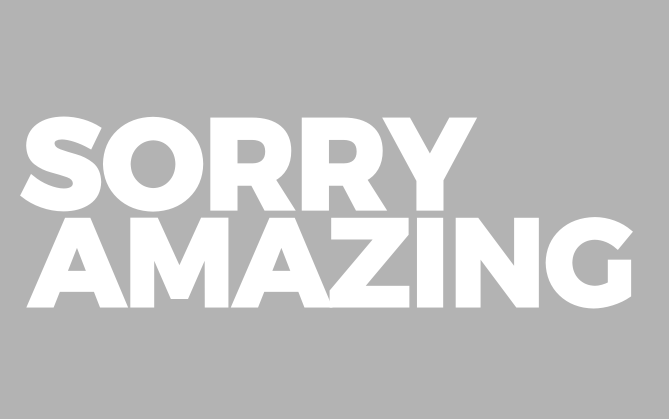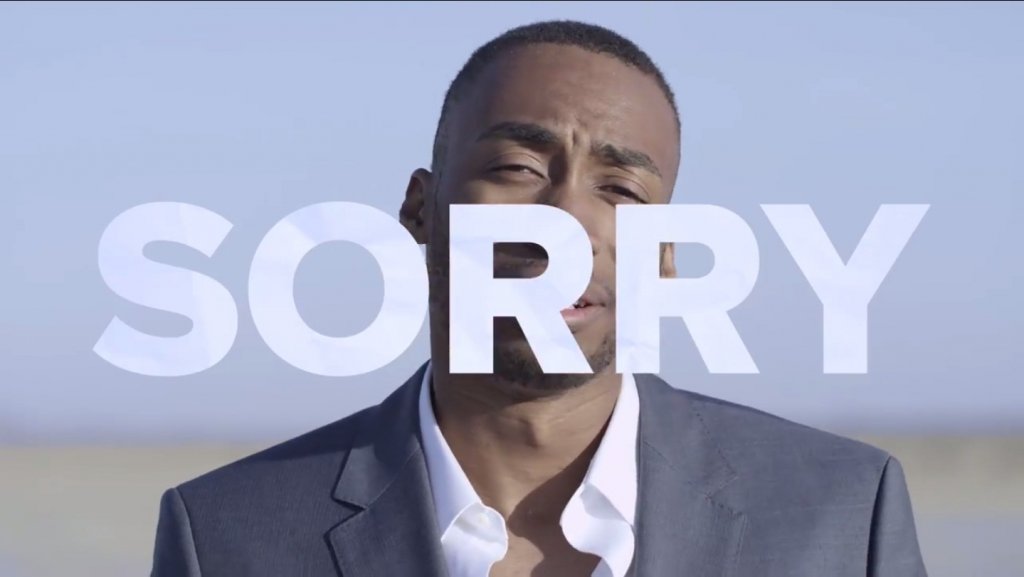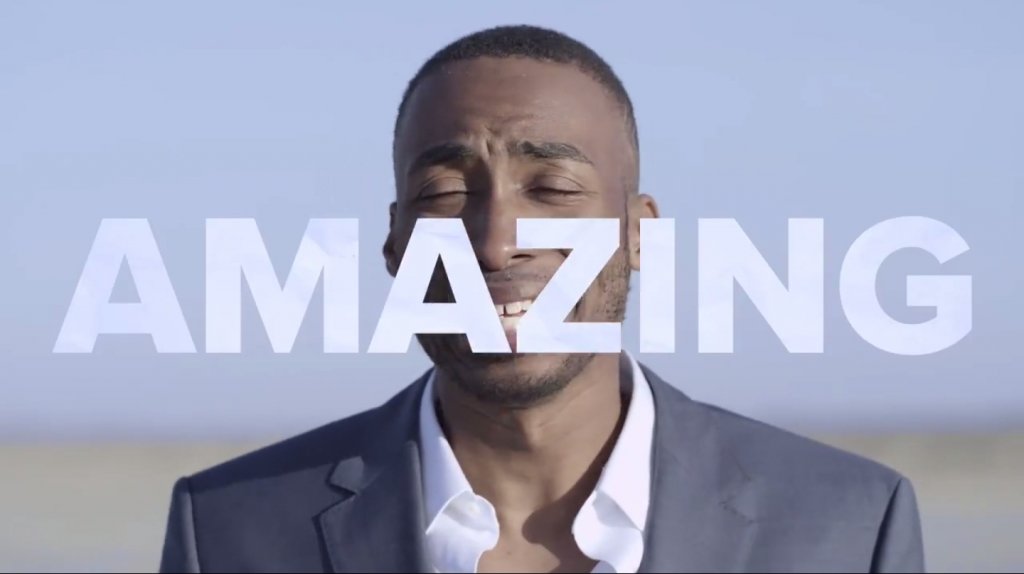
Please help me to identify this font
As the title say, Please help me to identify this font that is there in the images I have attached. Please tell.
It's not the exact same font, but a bolder version of Montserrat is pretty similar to the one in your images. Hope that helps!
Proxima Nova ExtraBold is the exact font you're looking for. Glad to help ^_^
It is called Proxima Nova but you have to select Extra Bold type in order to have that kind of font.